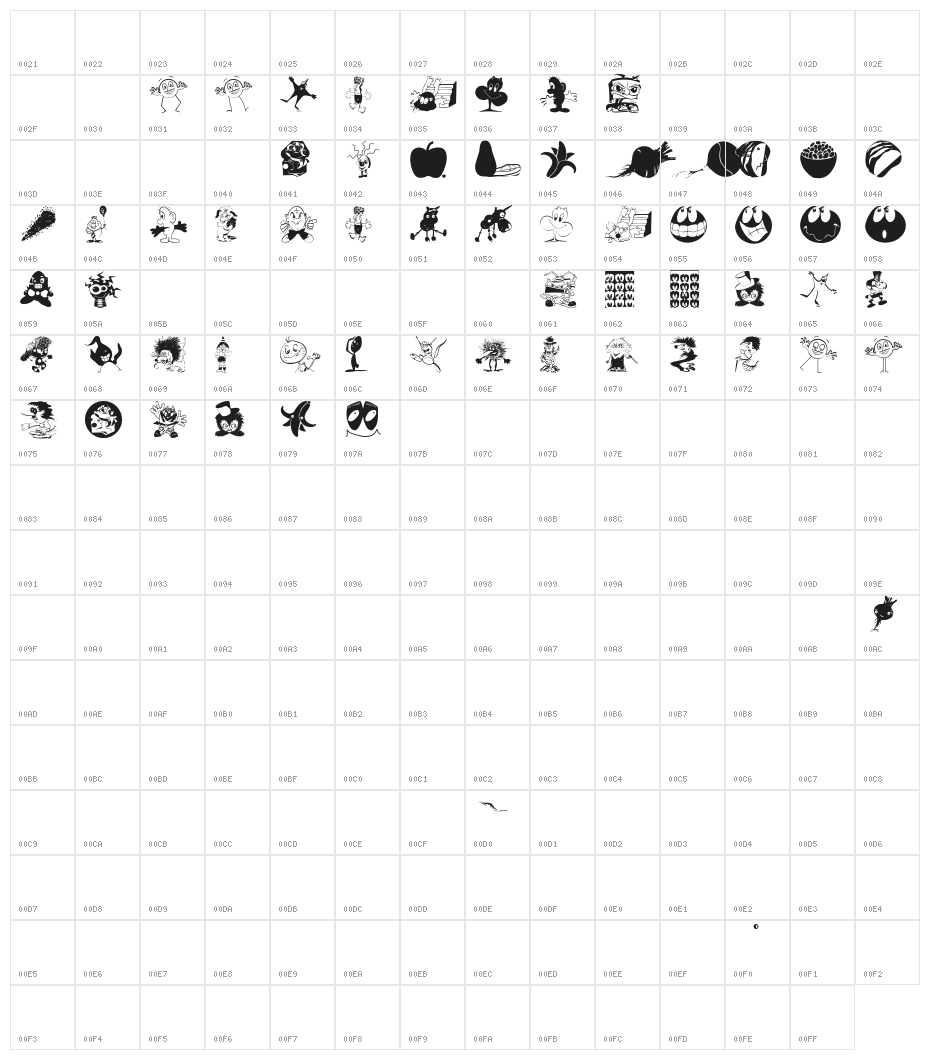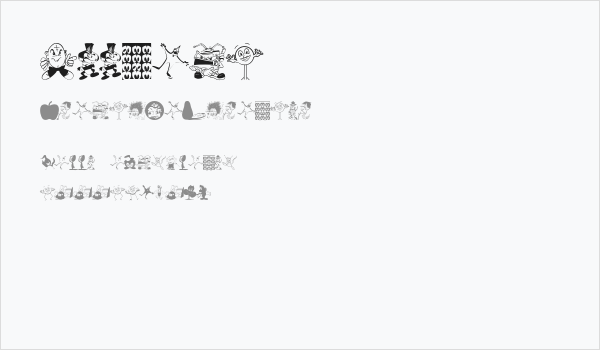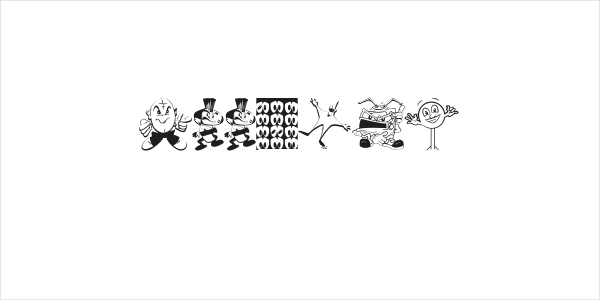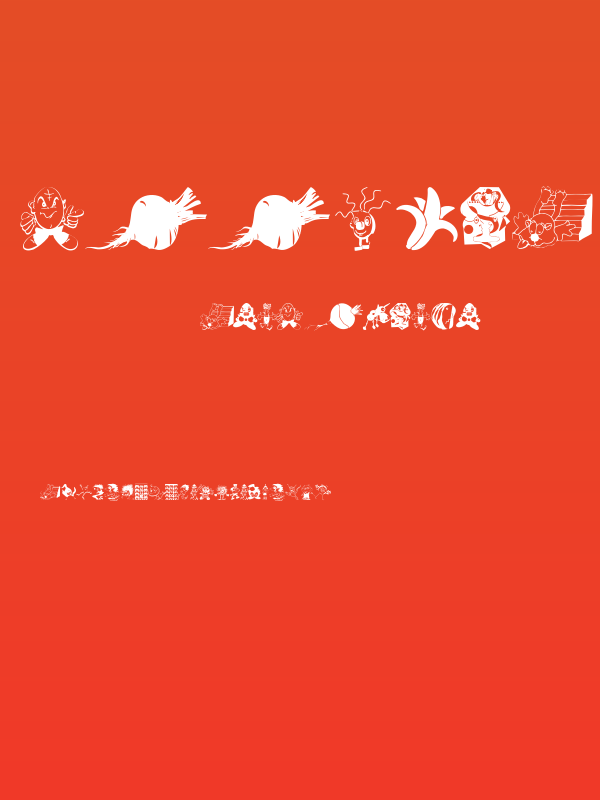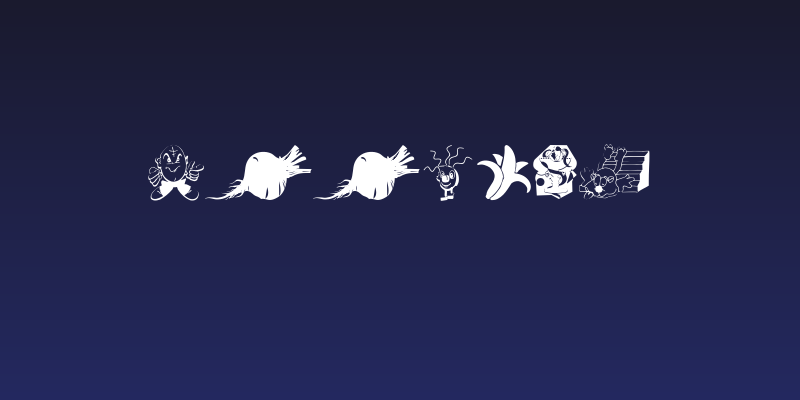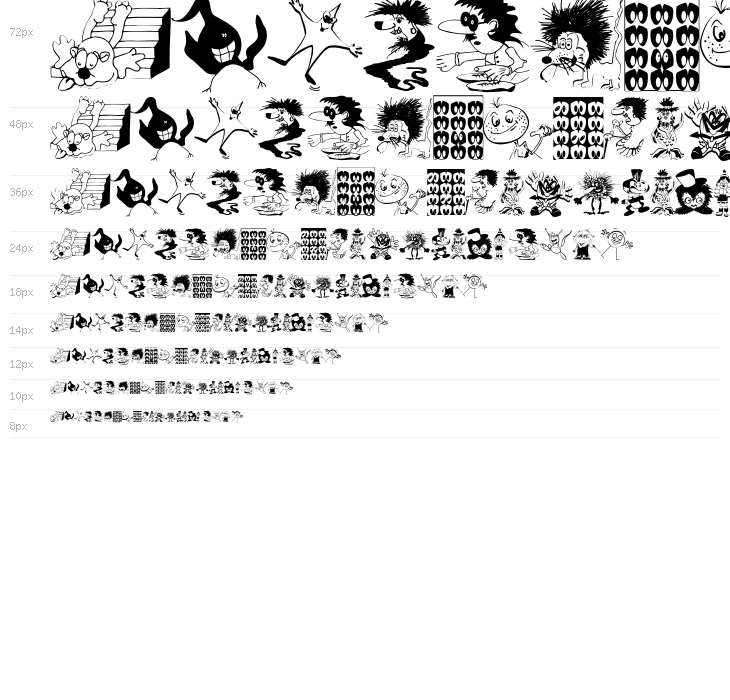
Offbeat Font
A highly decorative and whimsical collection of cartoonish characters and objects, each glyph represented by a unique, playful illustration rather than traditional letterforms. The style is bold, with exaggerated expressions and dynamic poses, making it visually engaging and unconventional.
| Overall Style | Whimsical, Playful, Decorative |
| Use Case | Logos, Headlines, Posters, ChildrenΓ’β¬β’s materials |
| Proposed Projects | ChildrenΓ’β¬β’s books, party invitations, comic strips, playful branding, posters, novelty merchandise. |